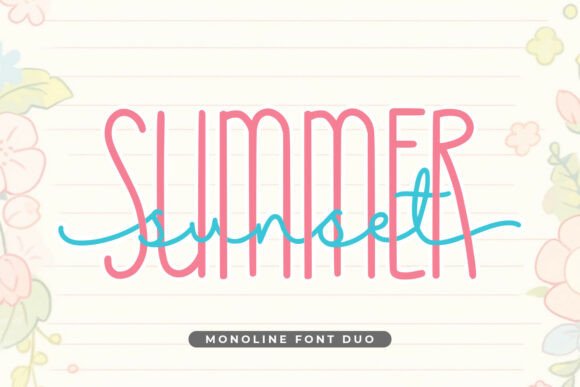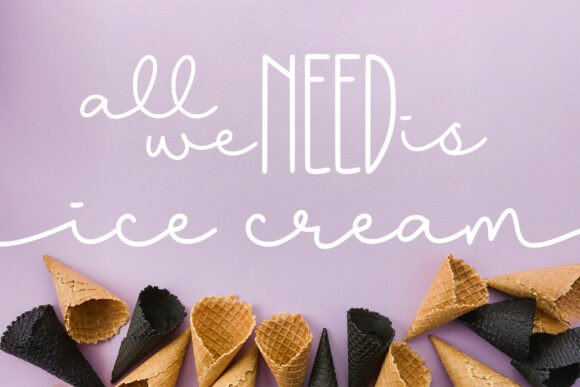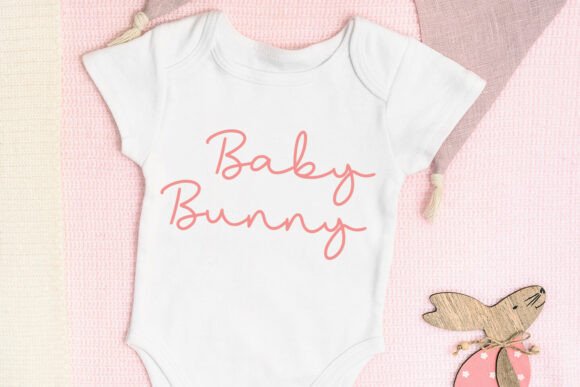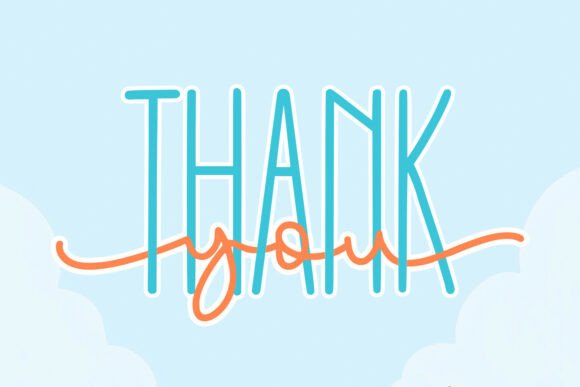
Sunset Summer Duo Font
SUNSET SUMMER is a beautiful pairing font.
It is great for branding, quotes, logos, t-shirt designs, tote bag designs, cards, banners, social media, and more.
It is designed carefully, which will improve the quality of your design.